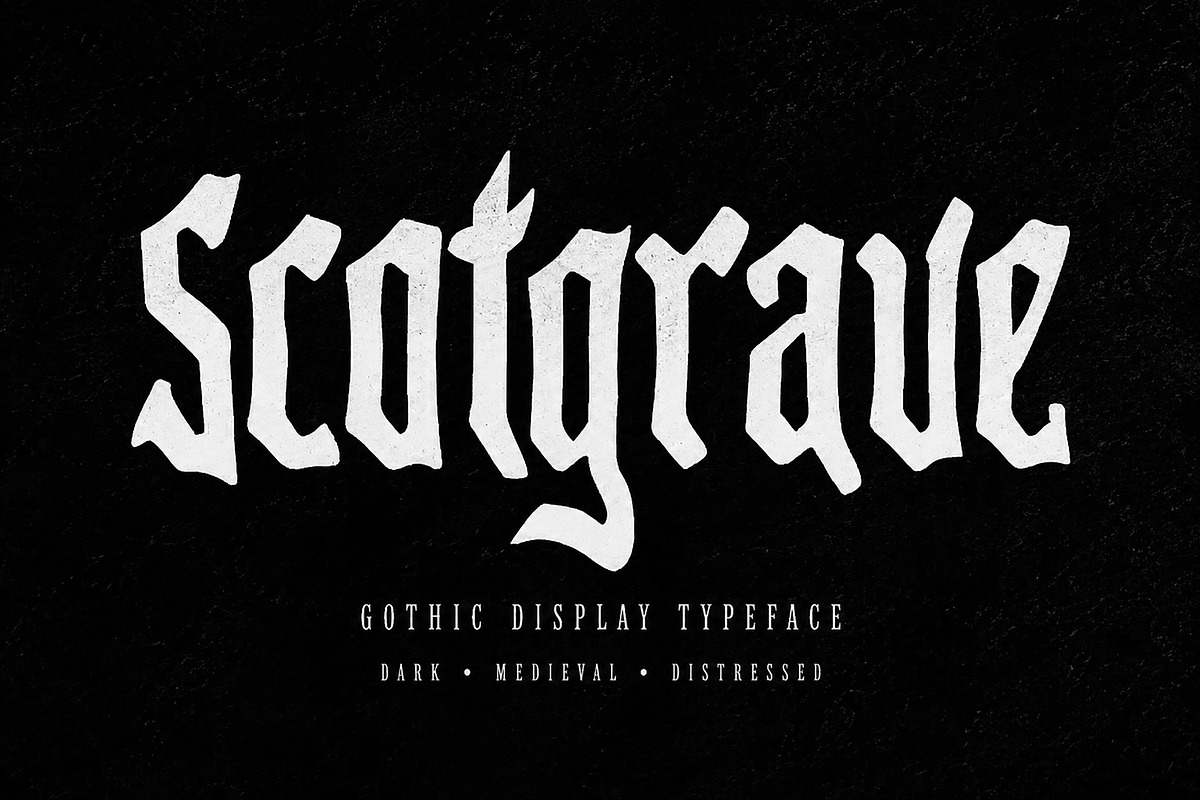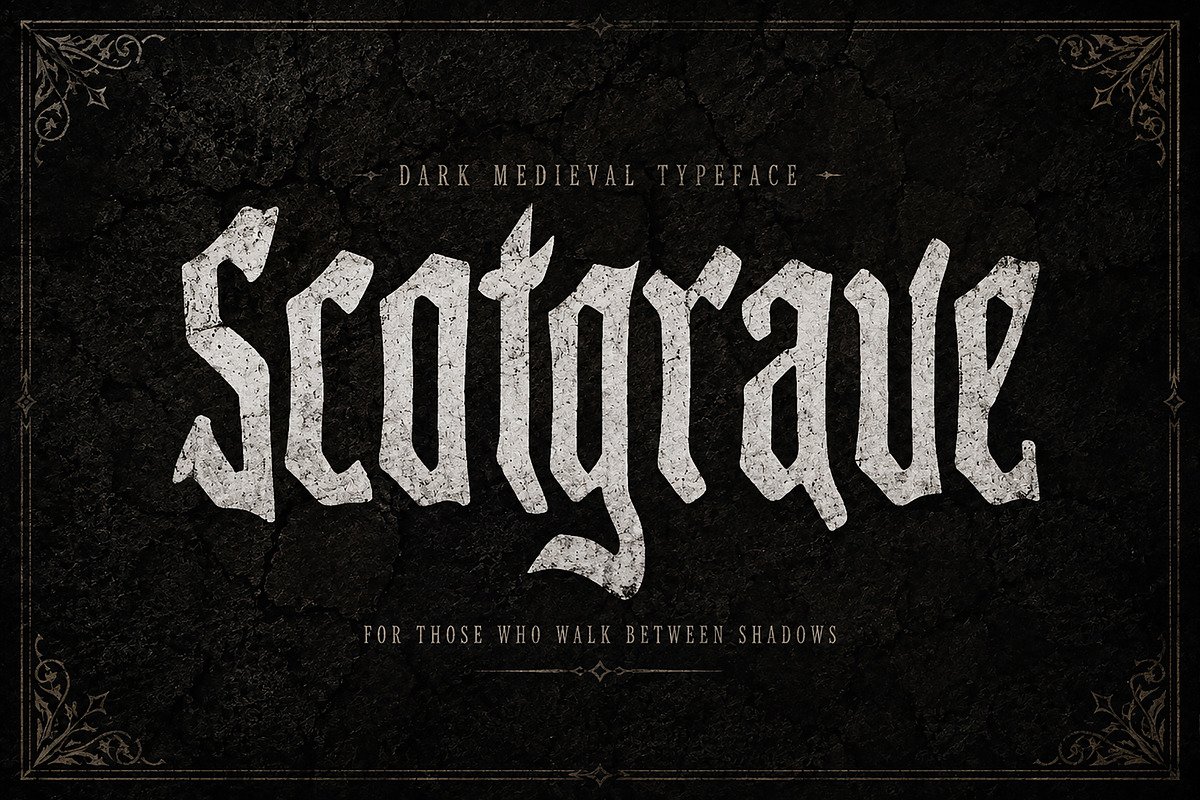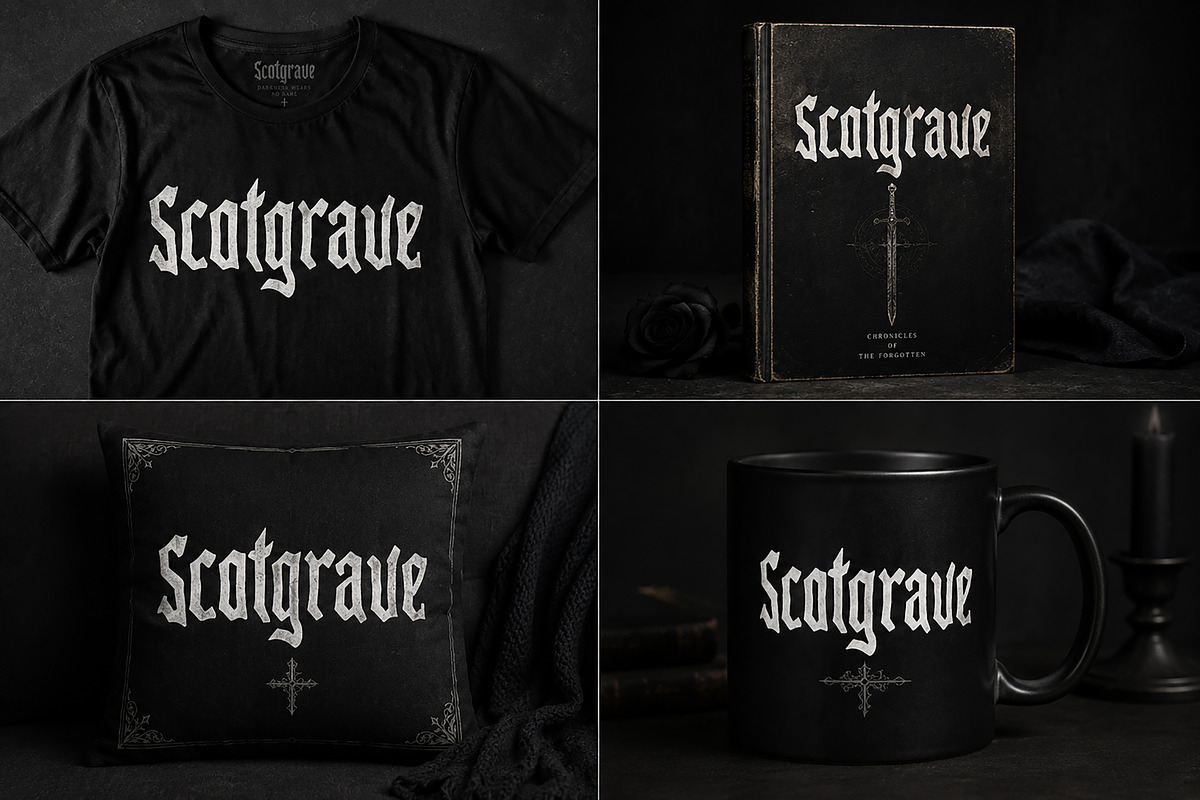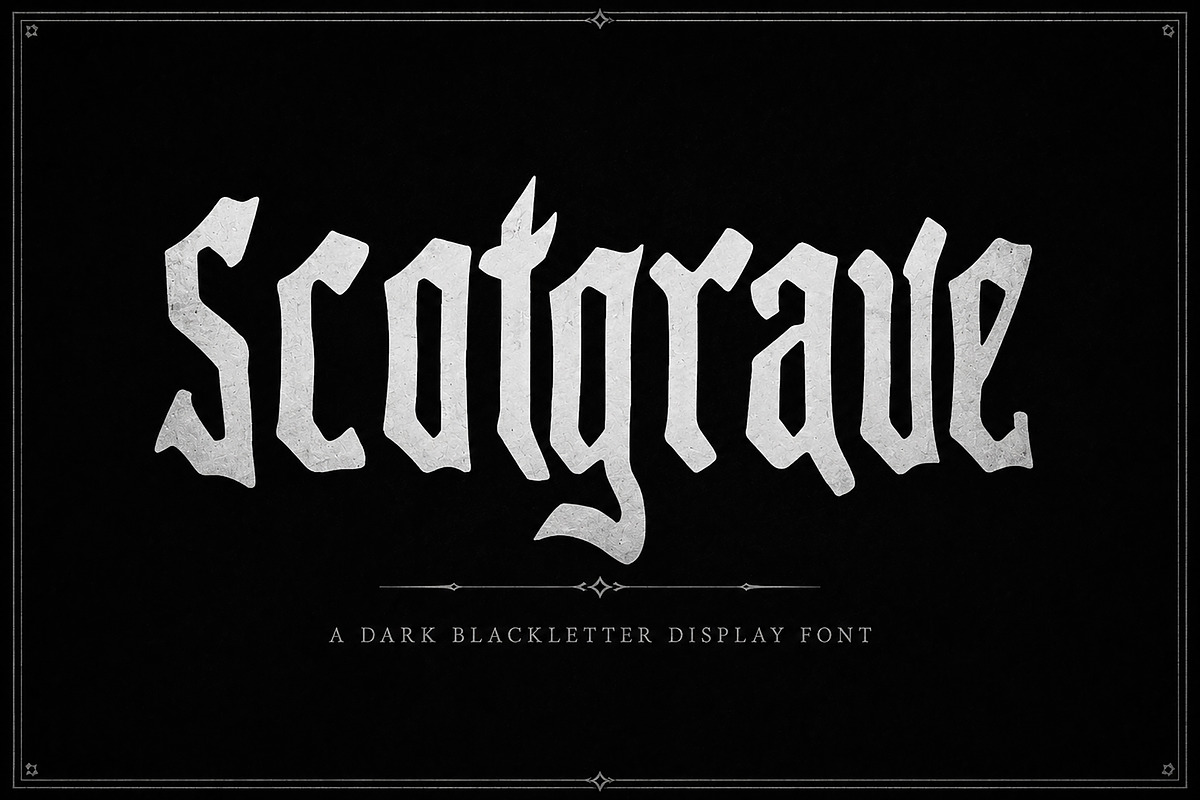
Scotgrave
Scotgrave — Gothic Blackletter Font
Scotgrave is a bold and atmospheric Gothic Blackletter display font designed to bring a dark, medieval, and powerful character to your designs. Its sharp, dramatic letterforms create a strong visual impact, making it an excellent choice for projects that need a mysterious, rugged, and distinctive typographic style.
Scotgrave works beautifully for dark branding, logos, apparel designs, album artwork, posters, book covers, labels, merchandise, packaging, invitations, badges, and other striking display typography projects.
Its distinctive blackletter aesthetic makes it especially suitable for gothic, medieval, metal, horror-inspired, vintage, alternative, and dark-themed creative projects.
Gothic & Medieval Branding
Logo & Brand Identity
T-Shirt & Apparel Designs
Poster & Print Design
Album & Music Artwork
Book & Novel Covers
Labels & Packaging
Badges & Emblems
Merchandise Design
Dark-Themed Typography
Creative Display Projects
Bring a powerful medieval atmosphere and unmistakable Gothic character to your next creative project with Scotgrave.